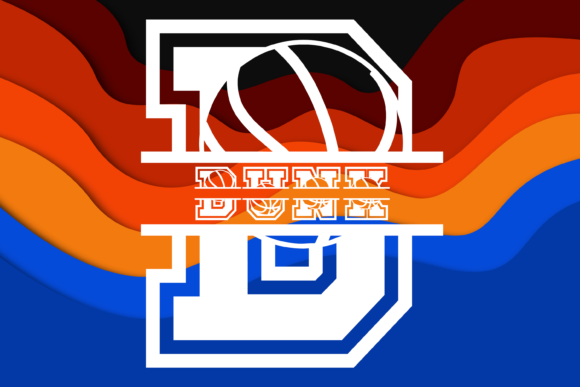
Introduction to Dunk Font
Dunk is an incredibly cool font.
It is ideal for your sports-related design ideas Simple but with a strong visual effect, this font will instantly make your creation more appealing than any others.
Dunk Font offers exceptional quality and versatility, making it a valuable addition to your design toolkit. Whether you’re creating for personal projects or commercial use, Dunk Font delivers professional results.